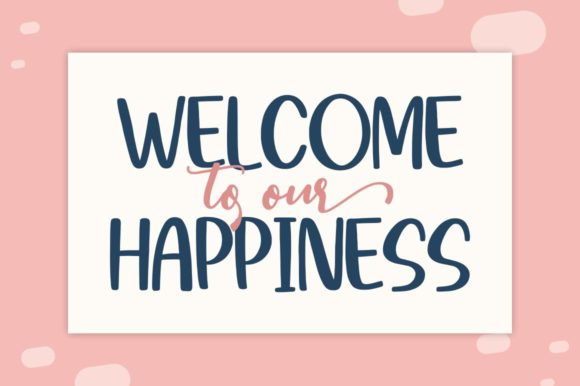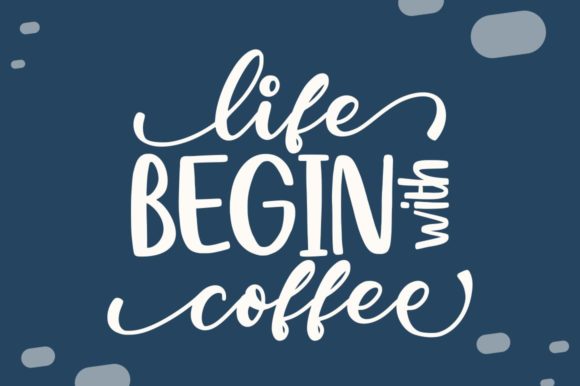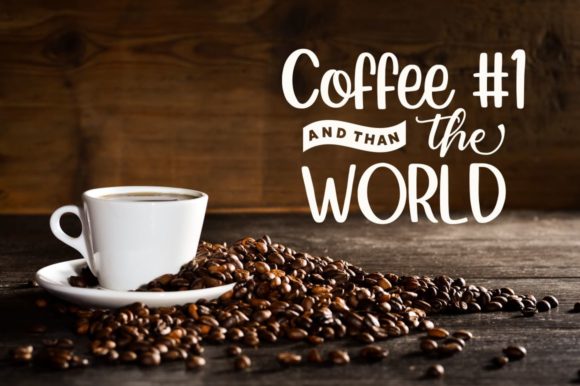
Introduction to Pintersan Font
Have you ever found yourself staring at a blank canvas, searching for the perfect font to bring your creative project to life? It’s a moment many designers know all too well – the moment when inspiration strikes, but the right tool is just out of reach. That’s where the Pintersan Font comes in, offering a solution that’s both versatile and stylish.
With its cute and casual handwritten feel, Pintersan Font is the perfect design resource for anyone looking to add a touch of personality to their work. Whether you’re creating graphics for Instagram or crafting calligraphy scripts for DIY projects, this high-quality font is sure to impress. Its gorgeous swashes and ligatures make it an ideal choice for designers who value a little extra flair in their designs.
Pintersan Font
- High-quality design resource suitable for creative projects and professional use.
- Includes a range of characters and glyphs, ensuring versatility in creative project applications.
Honest Review: Pintersan Font
I recently had the chance to work with the Pintersan Font, and I’m excited to share my honest review. As a designer, I’m always on the lookout for high-quality design resources that can elevate my creative projects.
What works well: ✨ The Pintersan Font has a modern and sleek design that looks fantastic on a transparent background. The font is highly versatile and can be used for a wide range of applications, from digital interfaces to print materials.
- High quality: The font’s high quality ensures that it will look great on any device, from desktops to mobile phones.
- Design resource: The Pintersan Font is a valuable addition to any designer’s toolkit, offering a unique and modern aesthetic.
What doesn’t work so well: ⚠️ The font is only available in a few weights, which may limit its use in certain creative projects.
Overall impression: The Pintersan Font is a solid choice for designers looking for a high-quality, modern font. While it may have some limitations, its benefits far outweigh its drawbacks. I would definitely recommend the Pintersan Font to anyone looking to elevate their creative project with a unique and stylish font.
Tips for Getting the Most Out of Pintersan Font
For optimal results, use the font on a high-quality design project with a transparent background. Experiment with different font sizes and styles to achieve the desired look.
Pintersan Font is ideal for various design projects, including logos, branding materials, and creative graphics. It’s also perfect for use in social media posts, presentations, and documents.